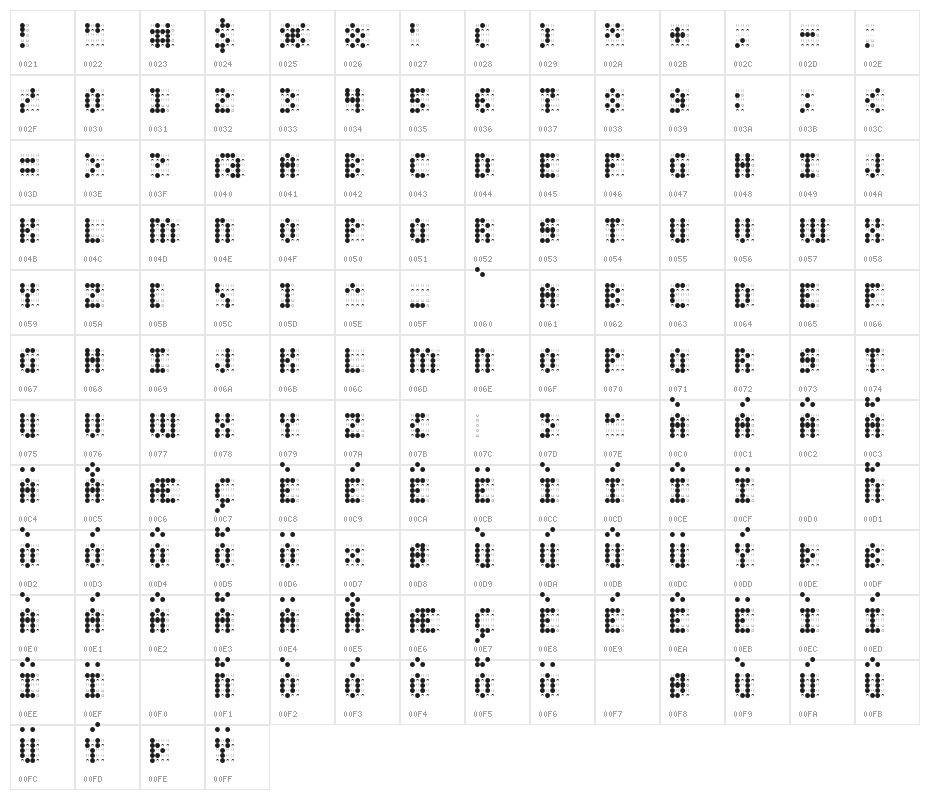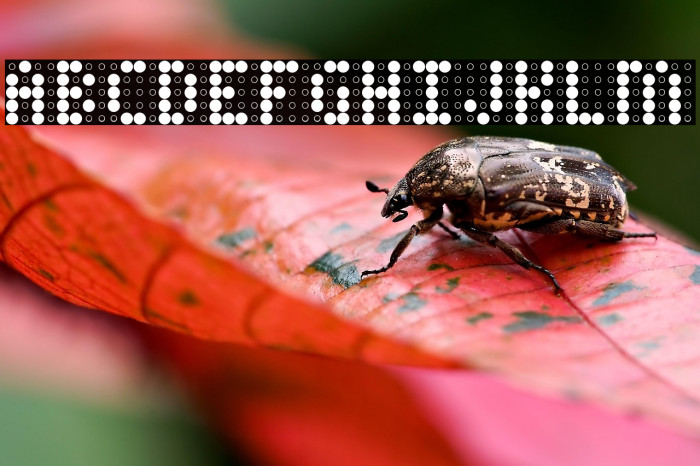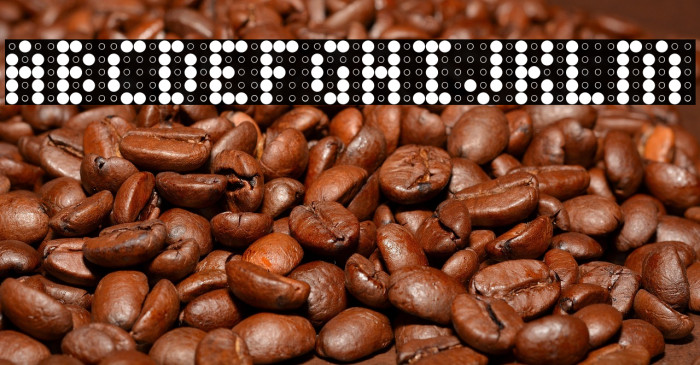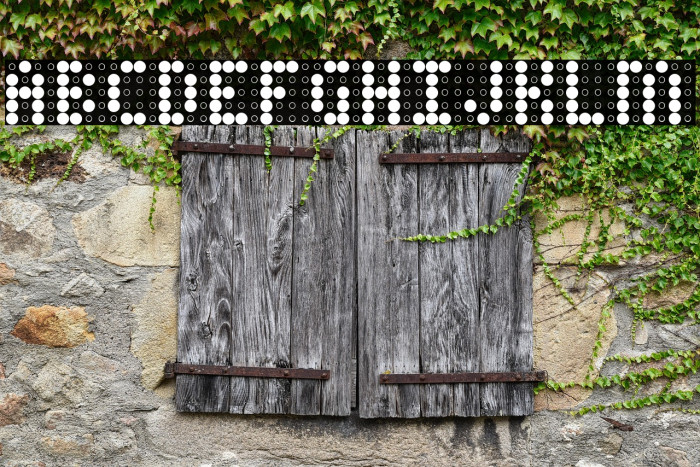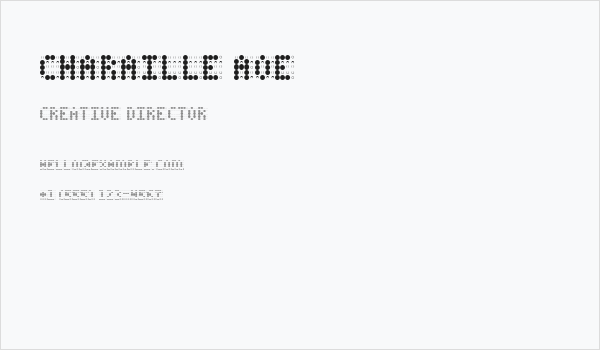
Charaille AOE Font
Charaille AOE Description
This font features a unique design composed entirely of dots, creating a pixelated and digital appearance. Each character is formed by a grid of black dots, with varying densities to outline the letters and numbers. The style is reminiscent of early digital displays or dot matrix printers, offering a retro and tech-inspired aesthetic. The characters are uniformly spaced, maintaining a consistent structure across all glyphs. This font is particularly eye-catching and would stand out in any digital or print medium where a futuristic or technological theme is desired.
| Use Case | Headlines, Logos, Digital displays |
| Proposed Projects | Ideal for digital art, tech-themed posters, retro video game graphics, and futuristic branding. |